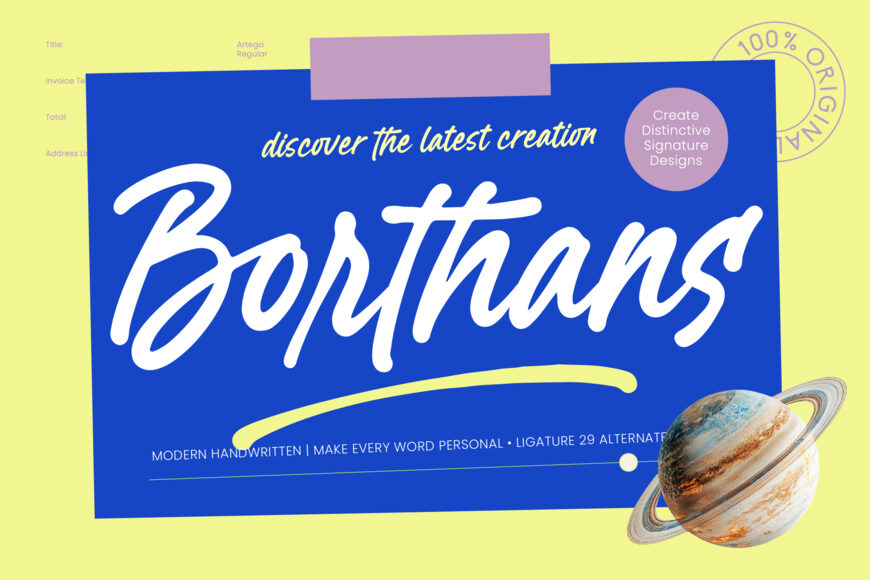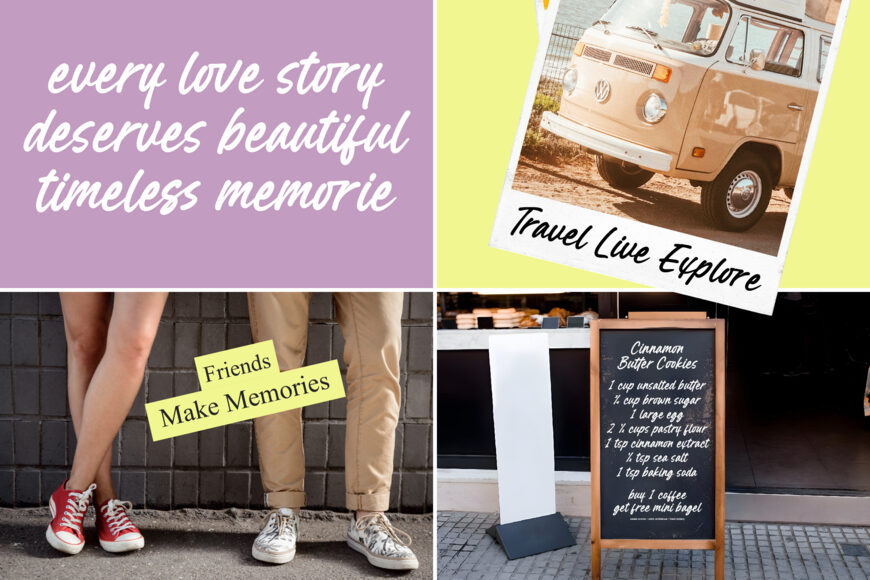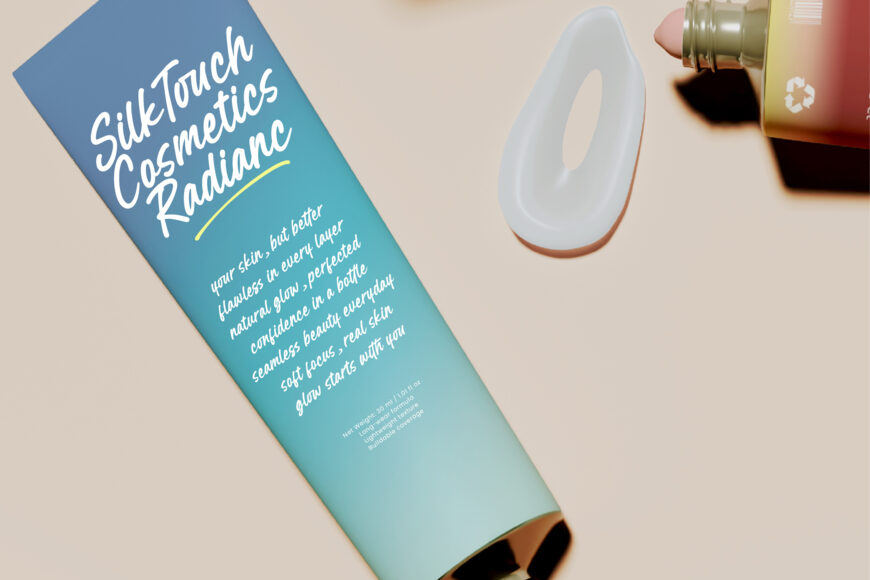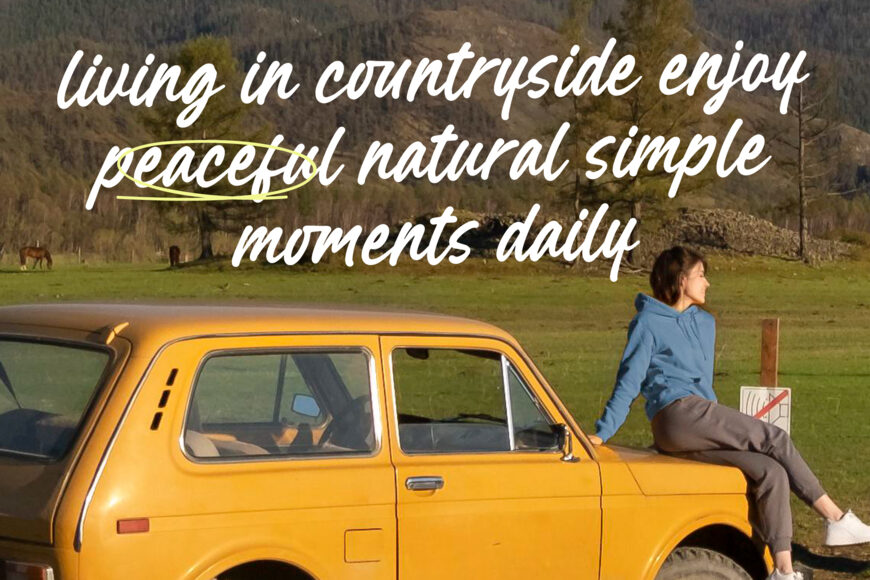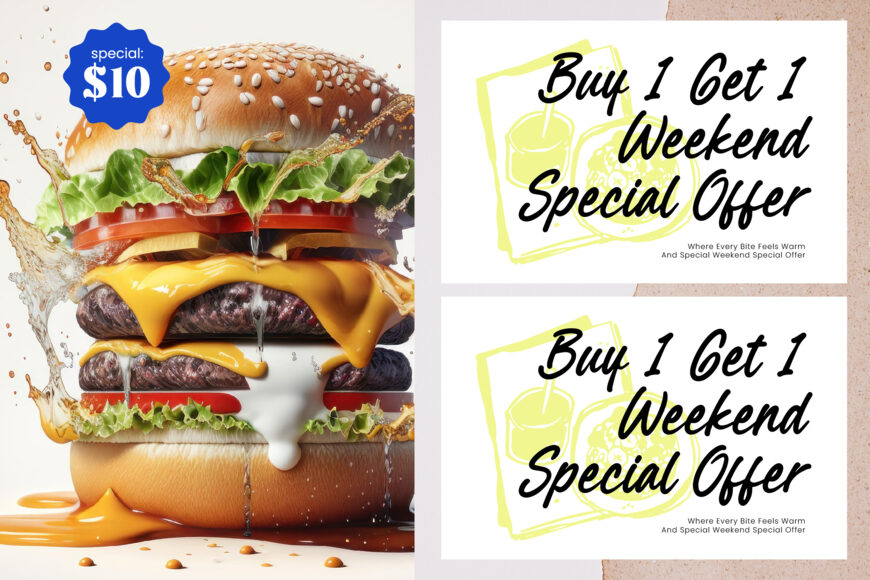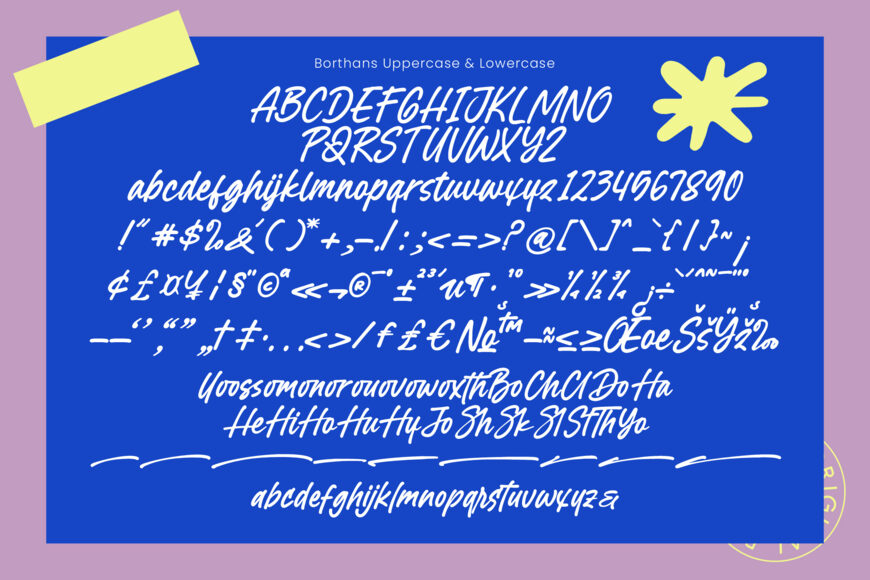
Elevate your design with a handwritten font that combines authenticity and fluidity. Borthans offers a balance of elegance and sophistication, perfect for adding a personal touch.
Its multilingual support and sophisticated features make it versatile for global projects, while its unique style is ideal for luxury branding, custom logos, and premium packaging, helping your brand stand out with clarity and style.